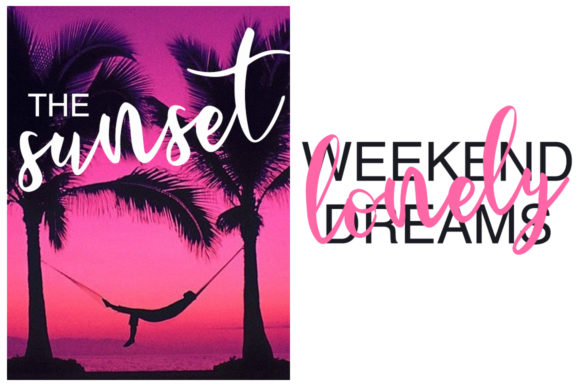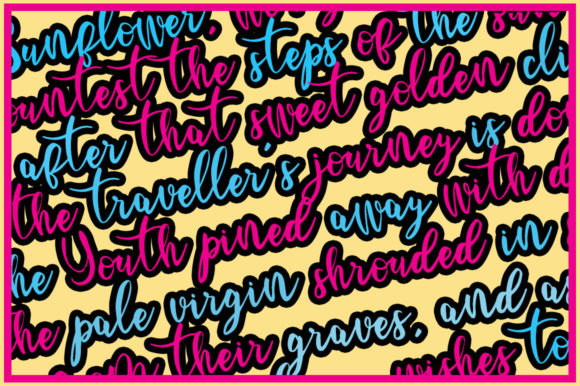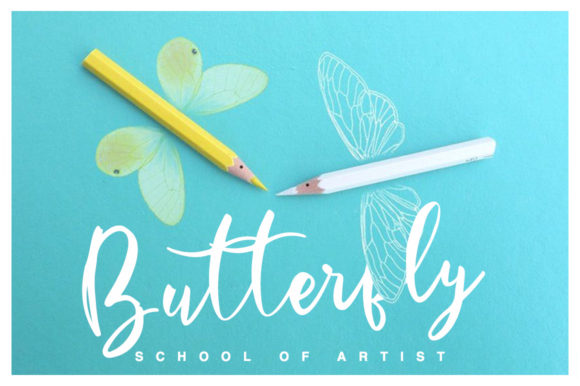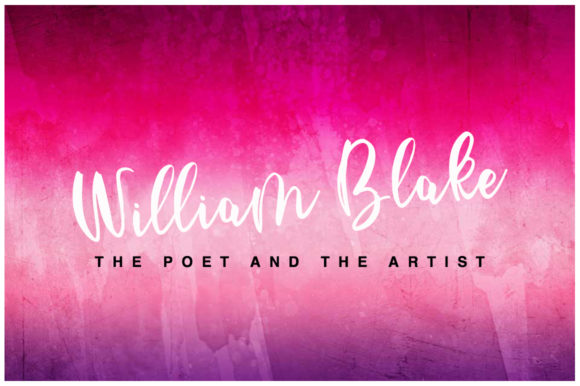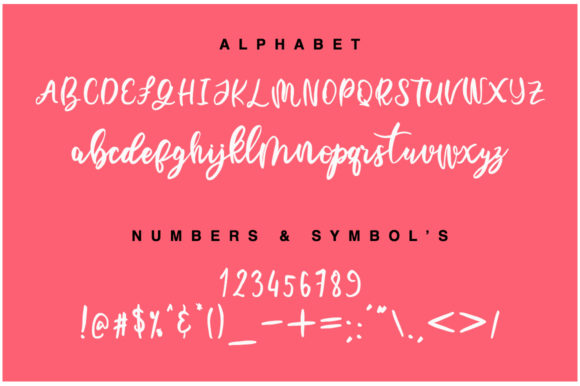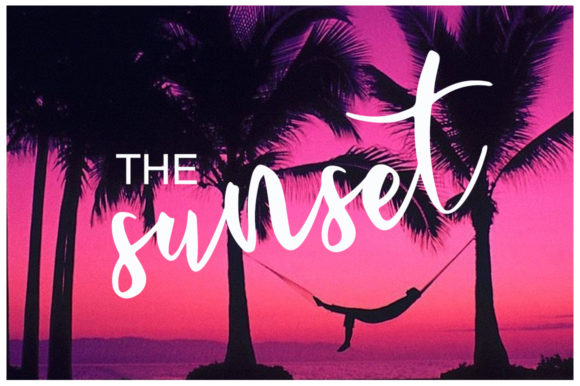
HomeScript FontsThe Mercury Font Script Fonts The Mercury Font FacebookXPinterestWhatsApp The Mercury Font Poster 2 The Mercury Font Poster 3 The Mercury Font Poster 4 The Mercury Font Poster 5 The Mercury Font Poster 6 The Mercury Font Poster 7 About The Mercury Font The Mercury is a fun and cool handwritten font with a unique feel. Get inspired by this stunning script! DOWNLOAD NOW People also explored Swirly Kids Font Pemane Font Nature Font Aviano Didone Lovely Font Spectrashell Hello Gorgeous Font Baby Cucumber Font Bellaigho Stanley Font 410 0 TagsThe Mercury Font Previous articleBelladia FontNext articleBetter Summer Script Font LEAVE A REPLY Cancel reply Comment: Please enter your comment! Name:* Please enter your name here Email:* You have entered an incorrect email address! Please enter your email address here Website: Save my name, email, and website in this browser for the next time I comment. Personal Use Free Coffete Personal Use Free Read more about this font Butter Belly Personal Use Free Read more about this font Better Together Duo Personal Use Free Read more about this font The Bocah Personal Use Free Read more about this font BLOG Best Fonts for YouTube Videos: Make Your Thumbnails Stand Out Best Fonts for YouTube Videos: Make Your Thumbnails Stand Out Choosing the right font can make a massive difference in how your YouTube videos perform.... Where to Buy American Fonts Online in 2024 Elegant Wedding Invitation Fonts – Handwritten & Script Fonts Free Fonts Risk: Why Free Fonts Can Be Dangerous for Designers